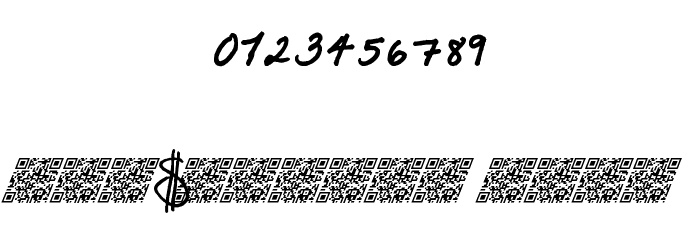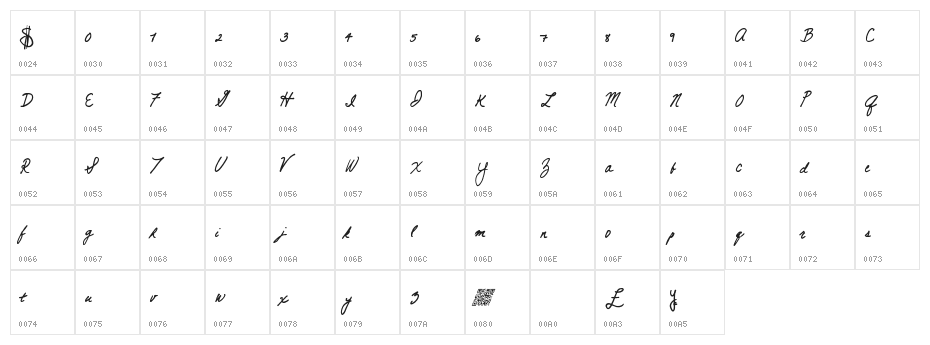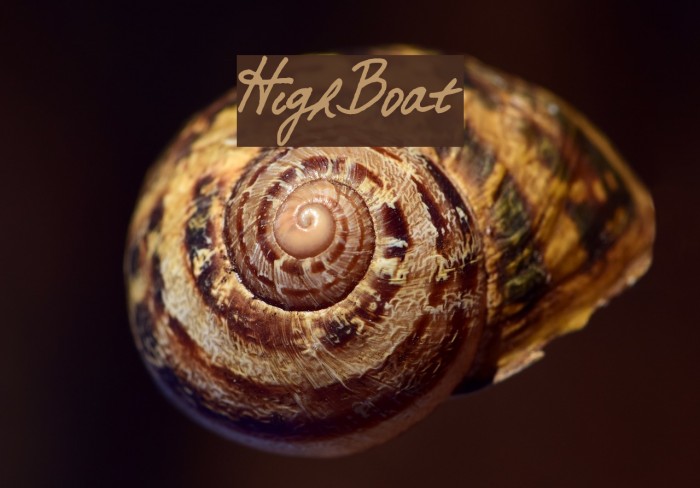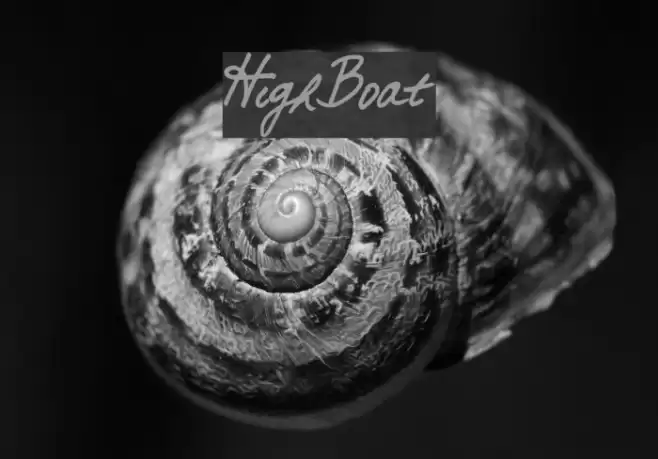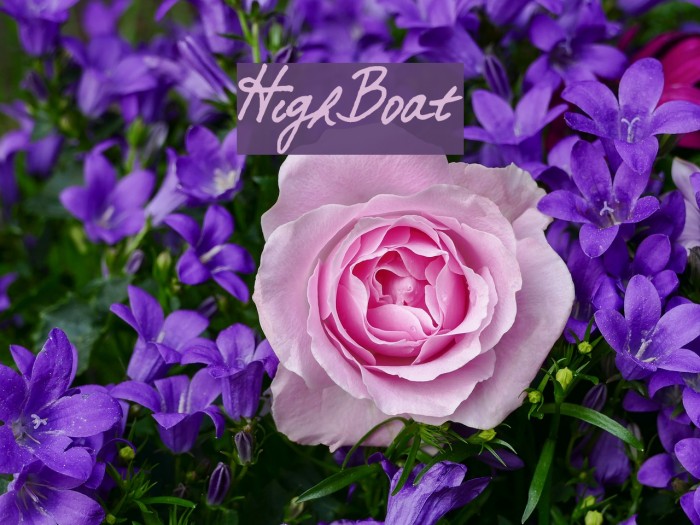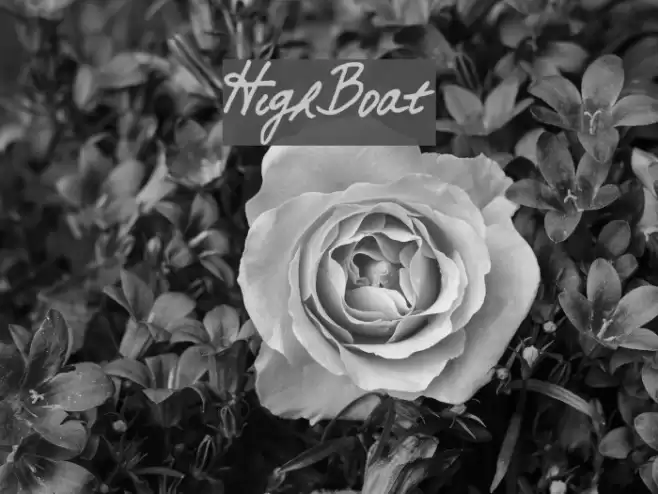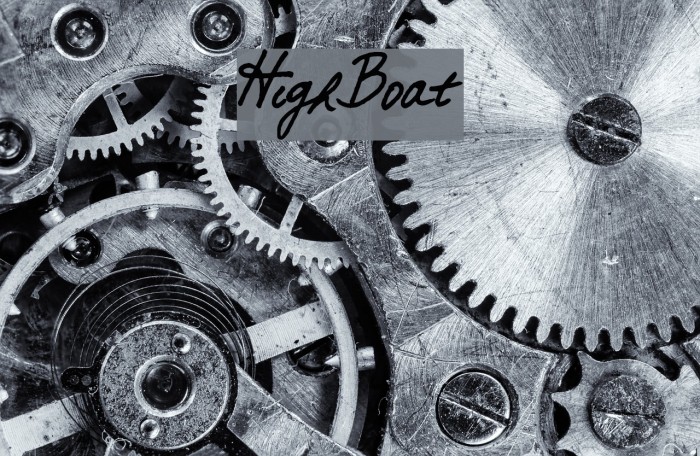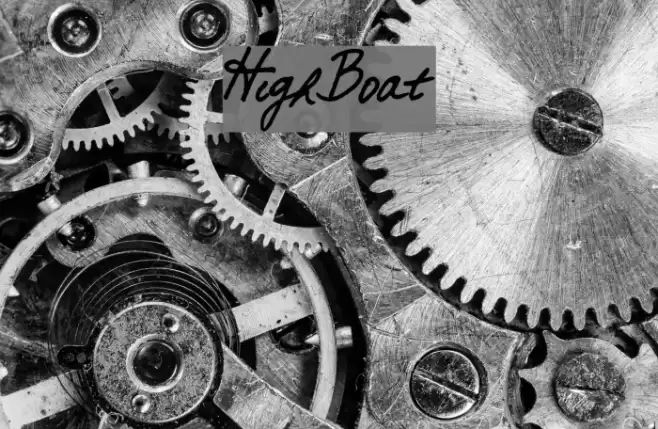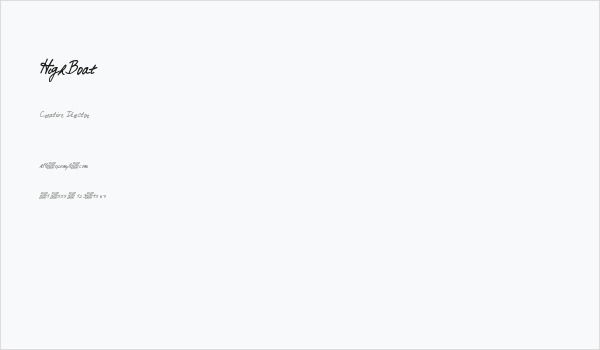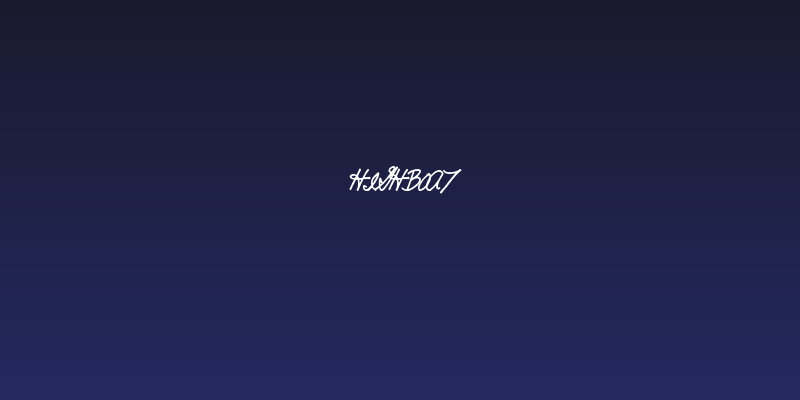
HighBoat Font
HighBoat Description
This font exhibits a flowing, cursive style with a handwritten appearance. The letters are connected, creating a seamless and elegant script that mimics natural handwriting. The uppercase letters are bold and expressive, while the lowercase letters maintain a consistent flow. The numerals are distinct yet harmonize with the overall script style. Special characters like $, ?, &, %, !, #, *, and = are integrated smoothly, maintaining the font's cohesive look. The font's organic curves and loops give it a dynamic and lively feel, making it suitable for creative and artistic projects.
| Proposed Projects | Ideal for wedding invitations, greeting cards, personal branding, and artistic projects that require a personal touch. |